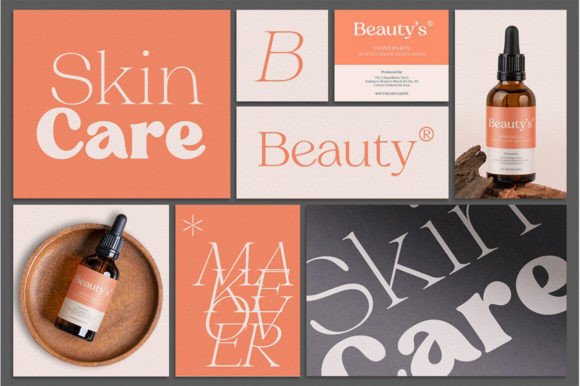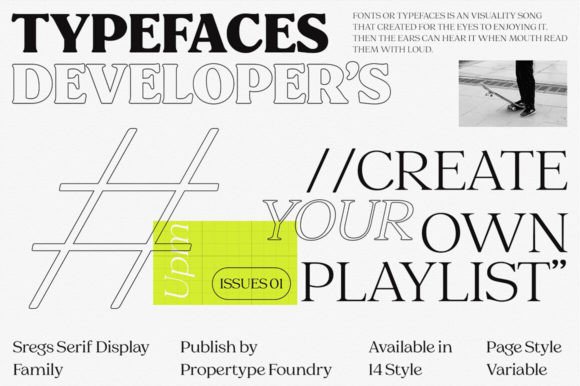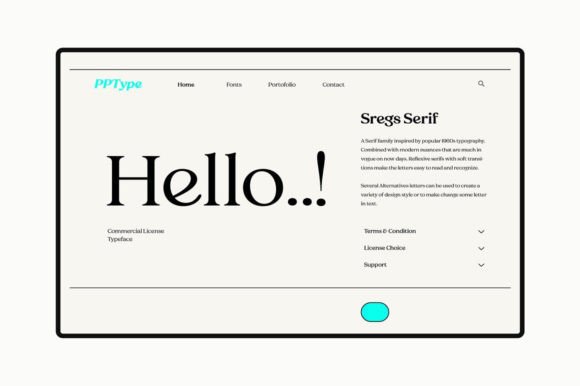
Sregs Serif Display Font
About the Sregs Serif Display Font
We are excited to introduce Sregs Serif Display Font, a must-have typeface for any serious designer. Sregs Serif Display Family
A Serif family inspired by popular 1960s-80s typography. Combined with modern nuances that are much in vogue nowadays. Reflexive serifs with soft transitions make the letters easy to read and recognize.
Its 7 weight with 2 styles (Standard and Italic) + 2 Variable font formats will provide several options that will help you find the ideal typographic feel for your project. Made for use in branding projects, large-scale printing such as billboards, signboards, titles, headlines, writing on short paragraphs, book titles, page titles, taglines, websites, apps, logos, etc.
Several Alternative letters can be used to create a variety of design styles or to make changes to some letters in text.